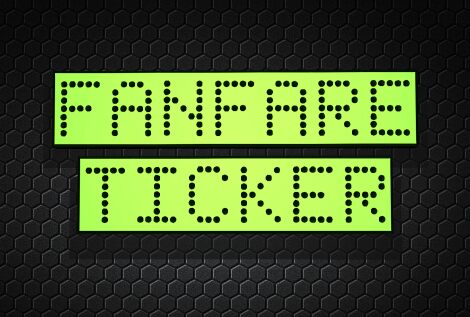
Fanfare Ticker Semi-Leftalic
Fanfare Ticker Semi-Leftalic, a captivating digital font from Iconian Fonts, exudes a sense of electrifying energy and forward momentum. With its distinctive semi-italicized letterforms, this font commands attention, inviting viewers to explore its dynamic visual rhythm. The unique blend of sharp angles and smooth curves creates a striking contrast, evoking a fusion of modernity and retro-futuristic flair. Fanfare Ticker Semi-Leftalic's bold, attention-grabbing aesthetic makes it an excellent choice for projects that require a visually impactful and attention-grabbing typographic treatment.
This versatile font lends itself beautifully to a wide range of applications, from eye-catching headlines and logo designs to captivating digital interfaces and signage. Its strong, digital-inspired character makes it an ideal selection for branding, advertising, and multimedia projects that aim to convey a sense of technological sophistication and cutting-edge style. Whether you're designing for the world of gaming, e-commerce, or contemporary visual arts, Fanfare Ticker Semi-Leftalic is a font that will undoubtedly make a lasting impression.